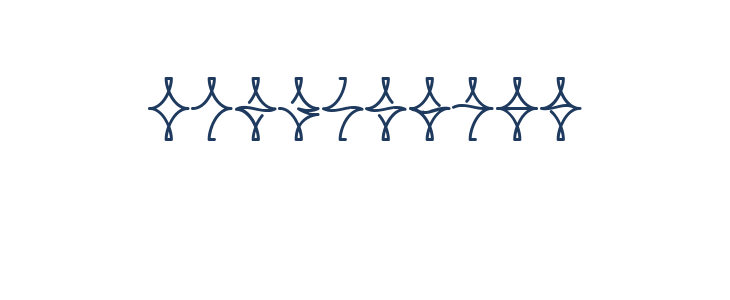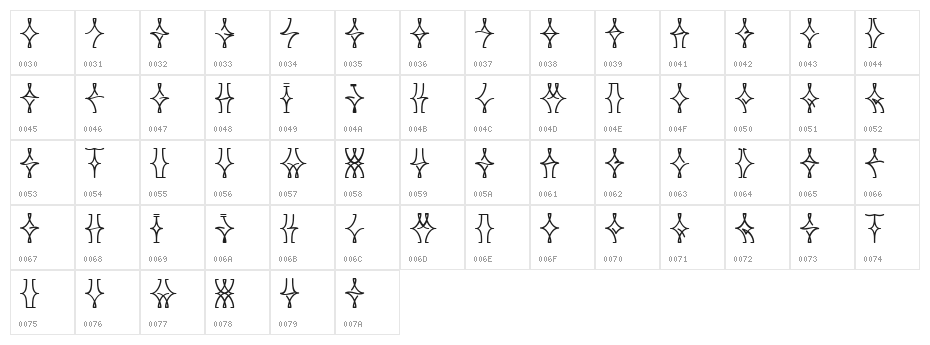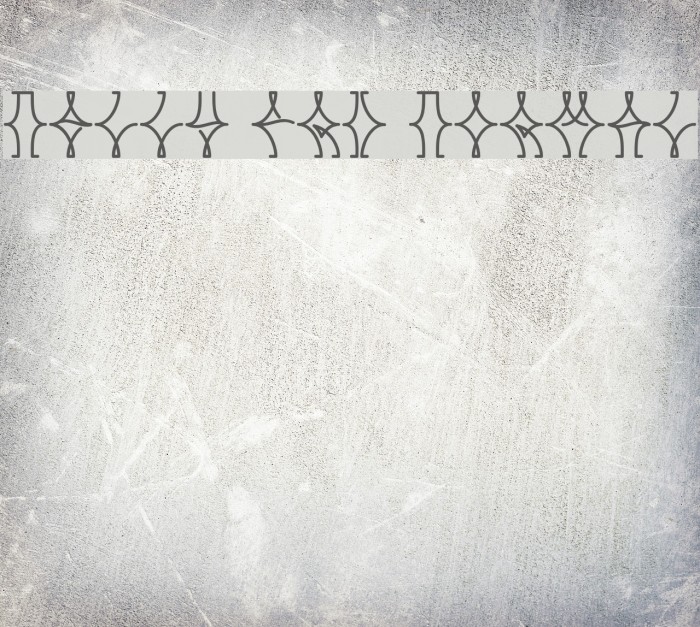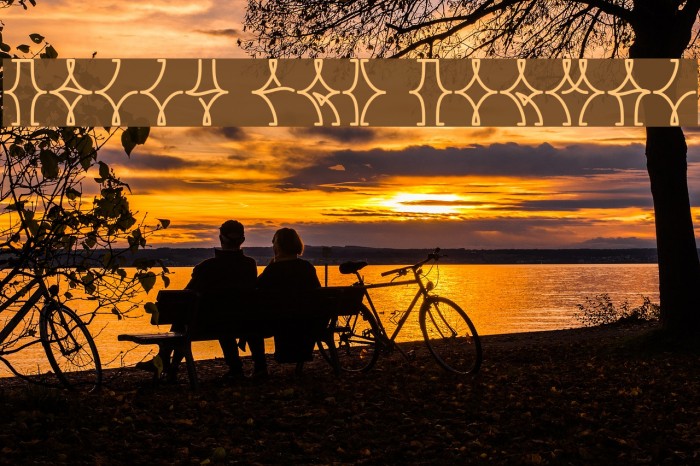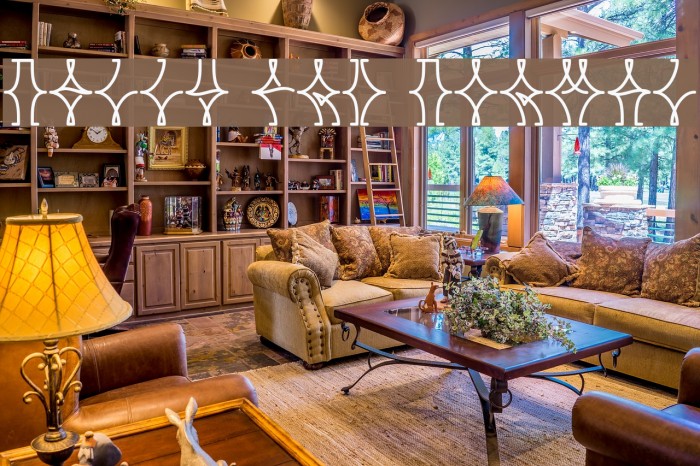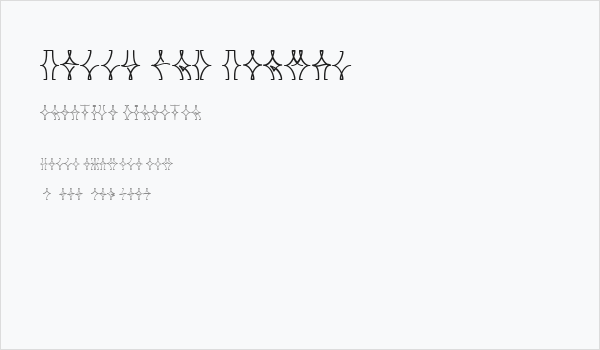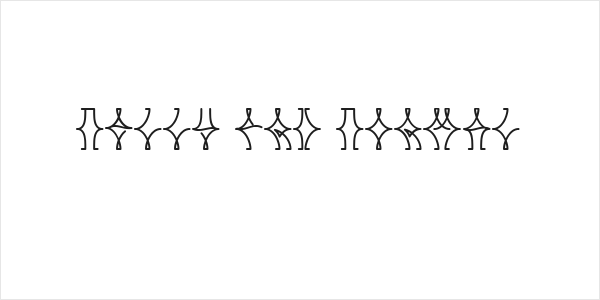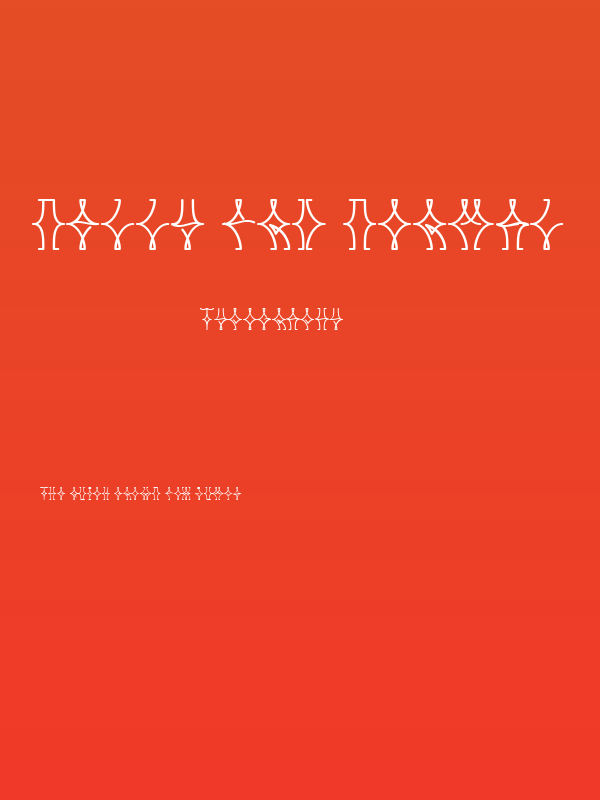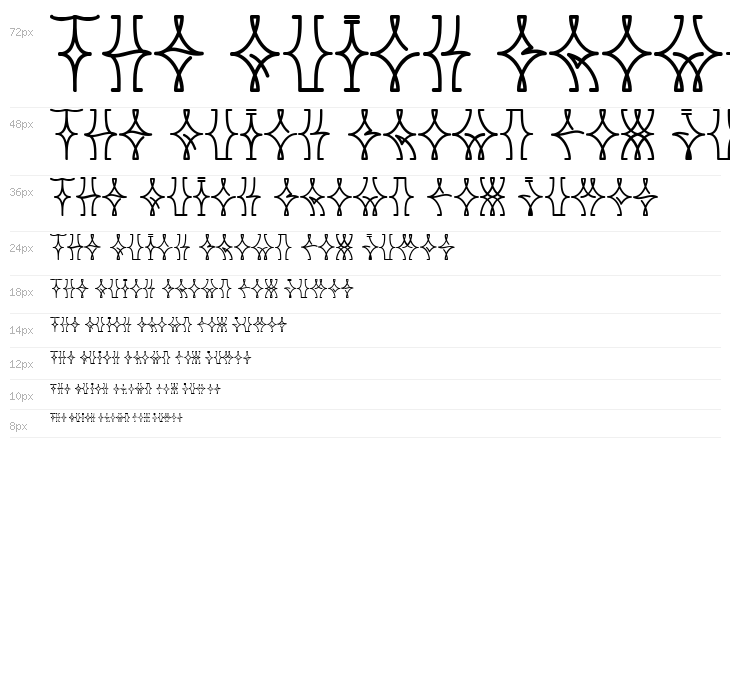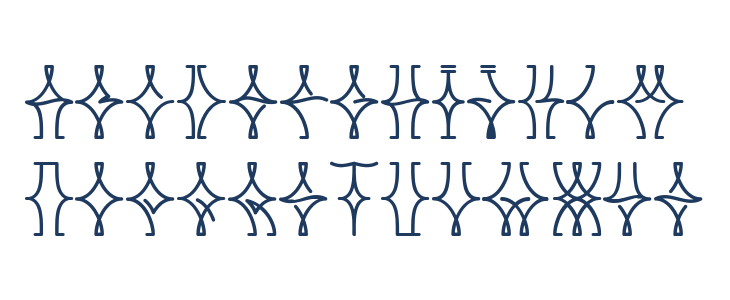
NELLY FRD Normal Font
NELLY FRD Normal Description
This font features a highly decorative and abstract design, characterized by intricate loops and curves that form each character. The strokes are consistent in thickness, creating a uniform appearance across all letters and symbols. The design is reminiscent of ornamental patterns, with a unique and artistic flair that sets it apart from traditional typefaces. Each character is distinct yet harmonious, contributing to a cohesive visual style that is both modern and artistic.
| Use Case | Logos, Posters, Artistic Designs |
| Proposed Projects | Ideal for artistic projects, branding, and decorative purposes where a unique and eye-catching typeface is desired. |